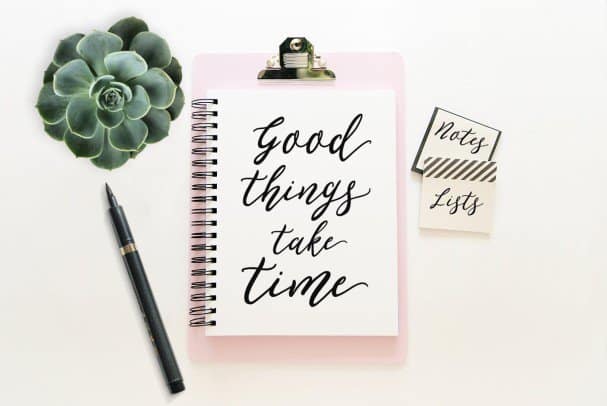
Flirty Feminine February Love Font
February Love Font is a cute and flirty hand-lettered script font that has become extremely popular among Mac users. It is also highly rated on Google Fonts.
This font is a sweeter bonus more decorative more font files, falls underneath the elegance of the script and handwritten typefaces.